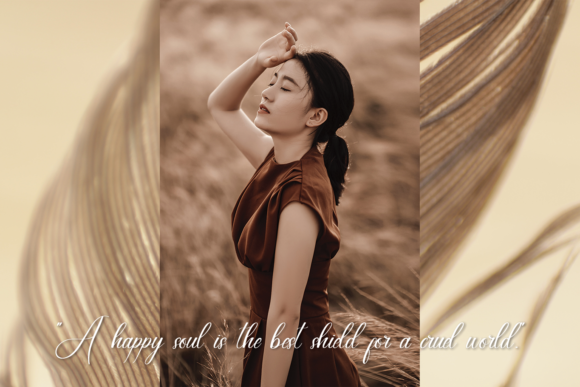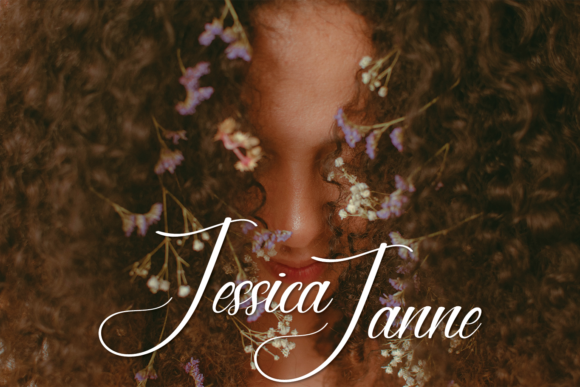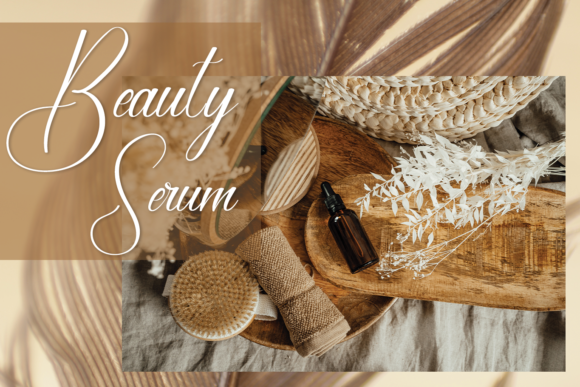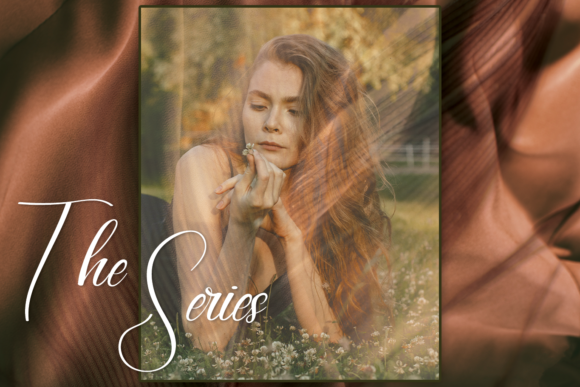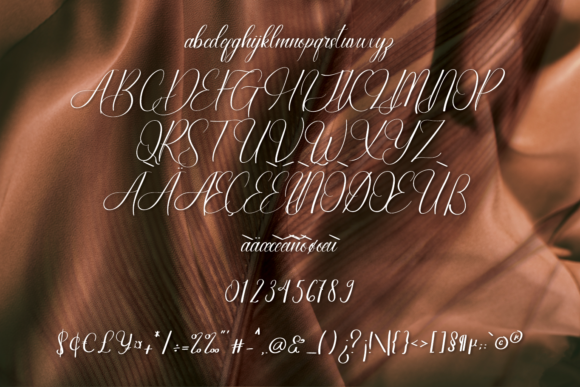
Yolanda Font
About Yolanda Font
Yolanda is a fashionable script font. It is neatly crafted and highly detailed. Whatever the topic, Yolanda will be a wonderful asset to your fonts’ library, as it has the potential to enhance any creation.